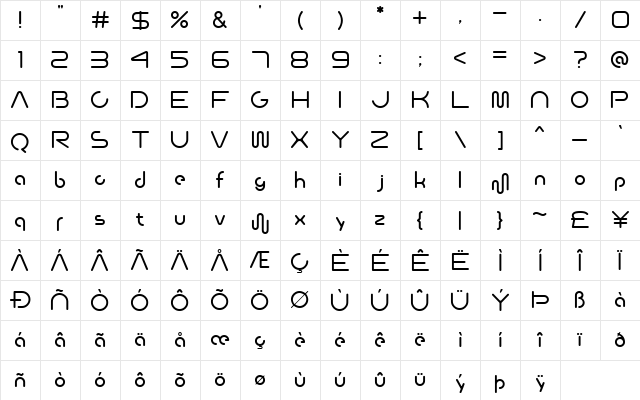
Steronite Regular
| Designer | Dadan Sukma Nurdiansyah |
Design Context for Steronite Typeface
Steronite takes a measured approach to typography — its balanced proportions and neutral character make it a reliable workhorse for both digital and print work.